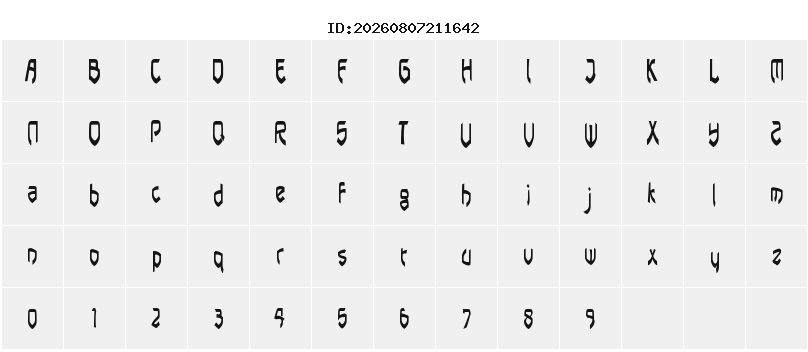
pasundan Preview
• Font Name: pasundan
• Font ID: pasundan:Version 1.00
• Full Font Name: pasundan
• Version: Version 1.00 June 17, 2014, initial release
• Designer: wates awal
• Manufacturer: KASUKI ( kawula sunda kiwari )
About pasundan.ttf
pasundan.ttf is a modern, elegant sans-serif font designed for ultimate readability and visual harmony. Perfect for branding, headlines, web design, and print materials.